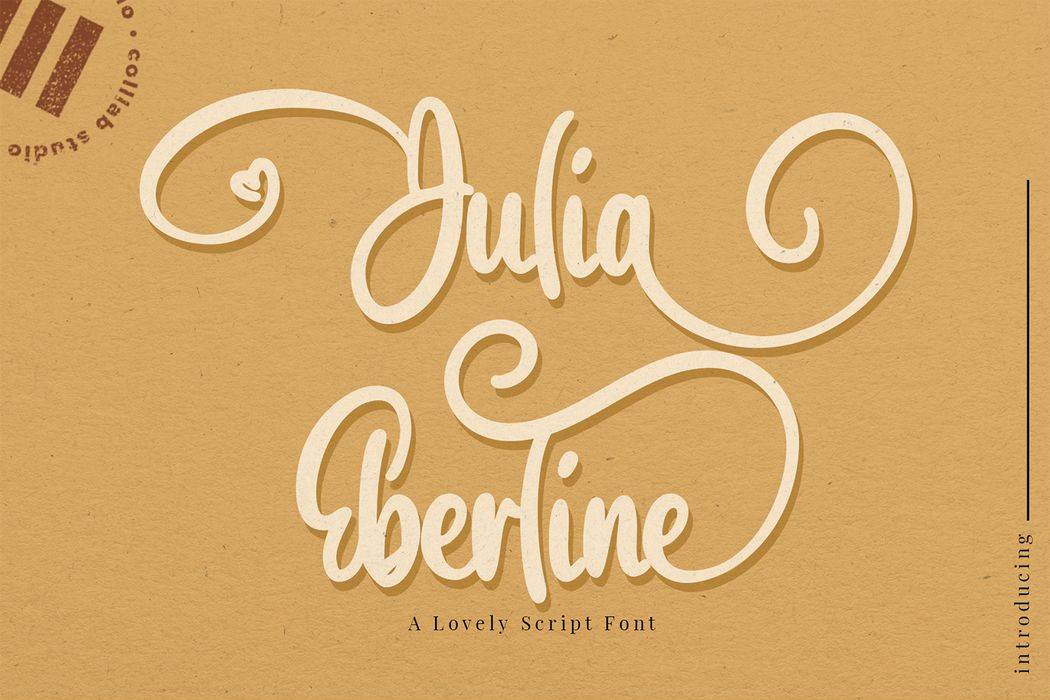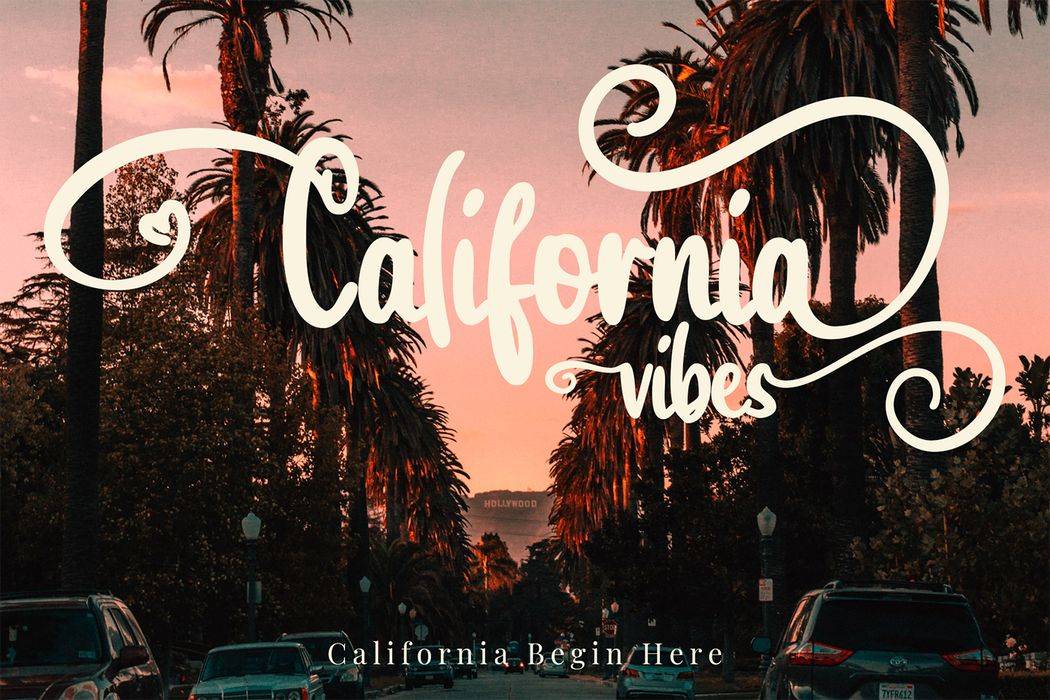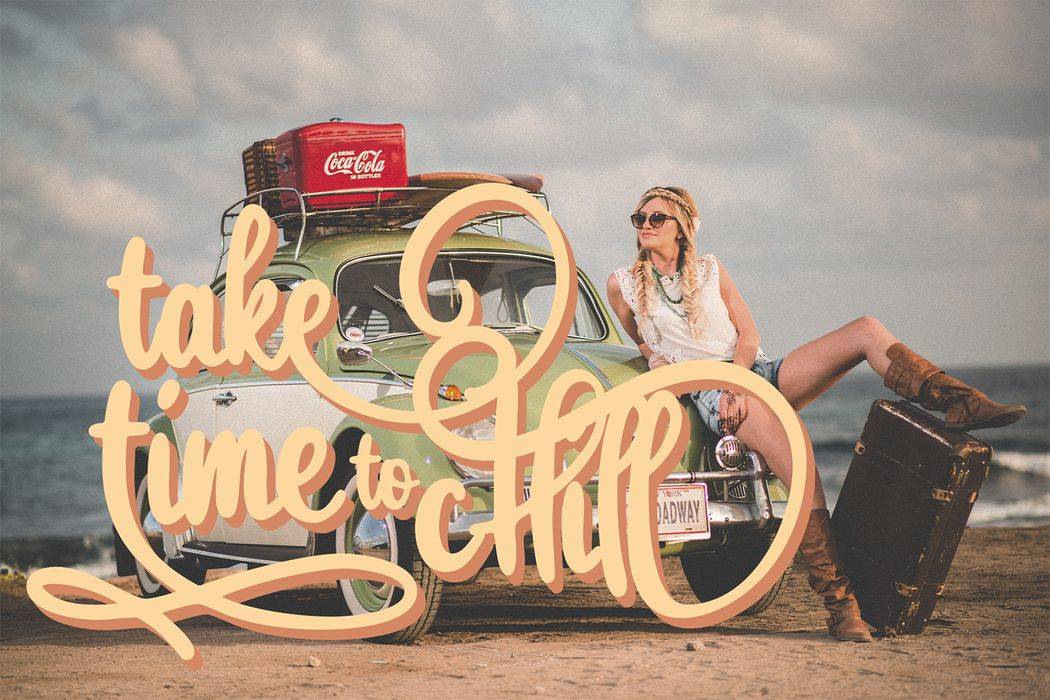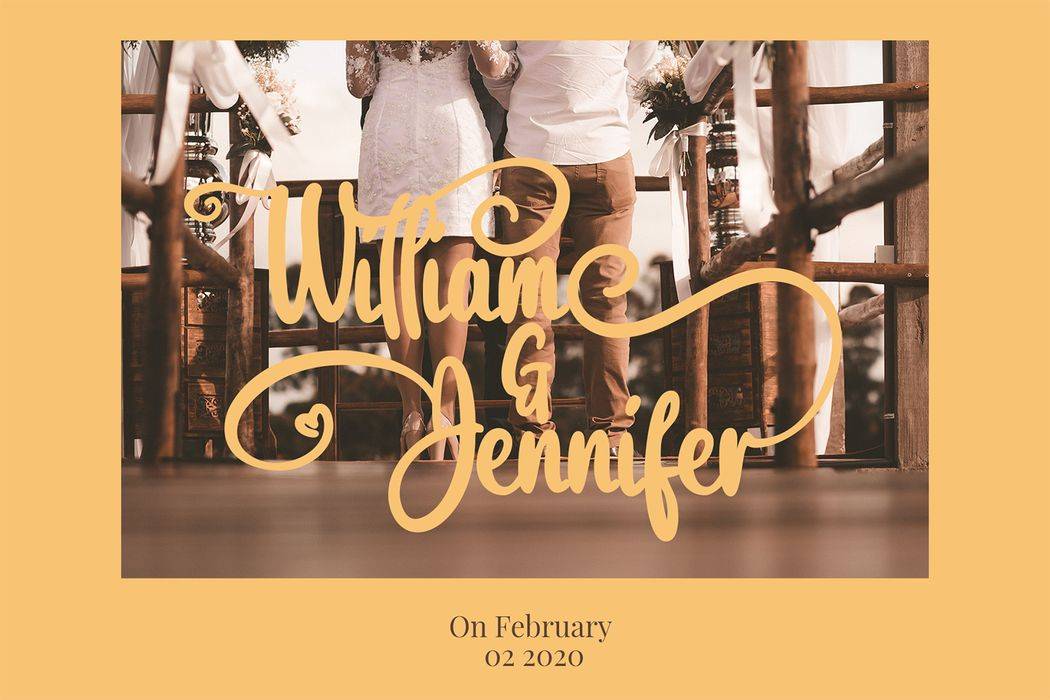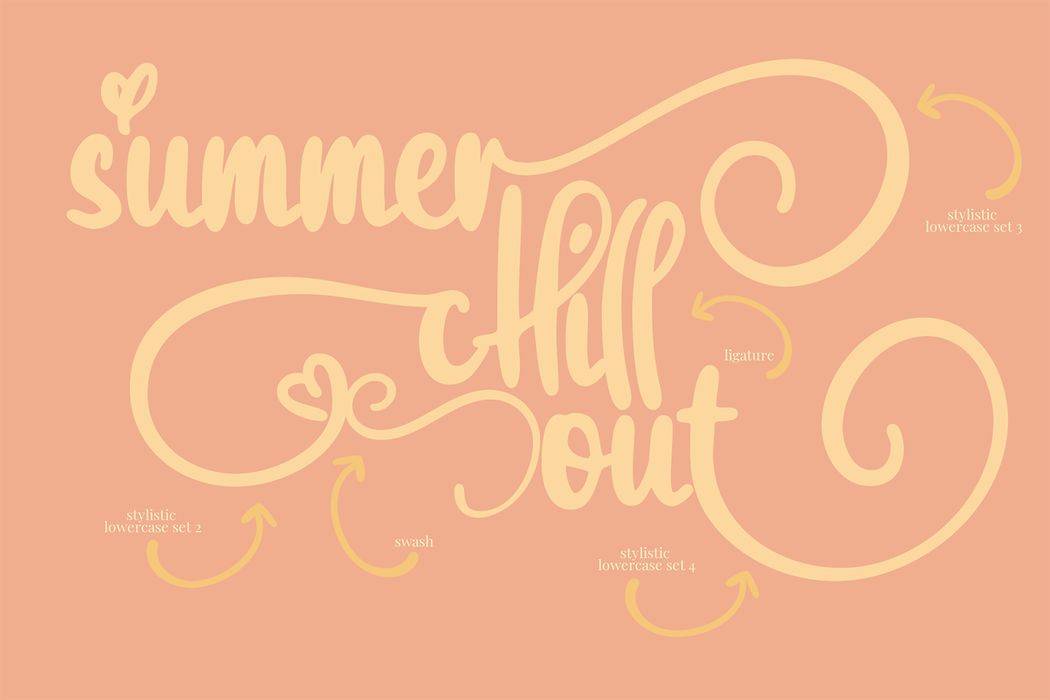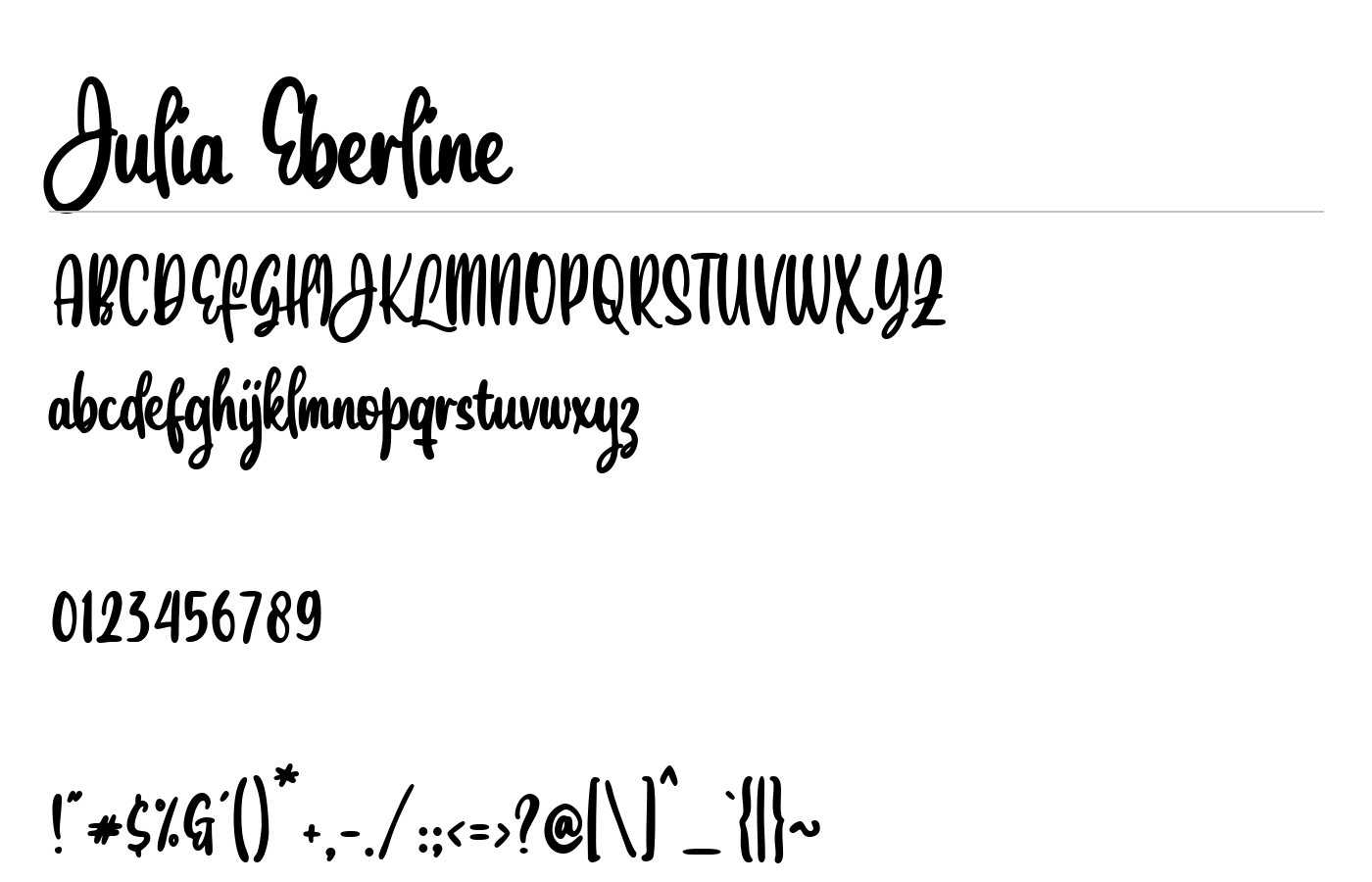
Julia Eberline is a playful and casual script font with a hand-drawn feel, featuring a tall x-height and slightly narrow width that gives it a friendly yet distinctive personality. The smooth, rounded strokes and quirky, irregular letterforms make it ideal for creative branding, greeting cards, and informal headlines where a warm, approachable vibe is desired. Its unique charm works well for projects seeking a personal touch without sacrificing readability.
| Font family | Julia Eberline Font |
| Release date | 2020-07-15 |
| Designer | Colllab Studio Team |